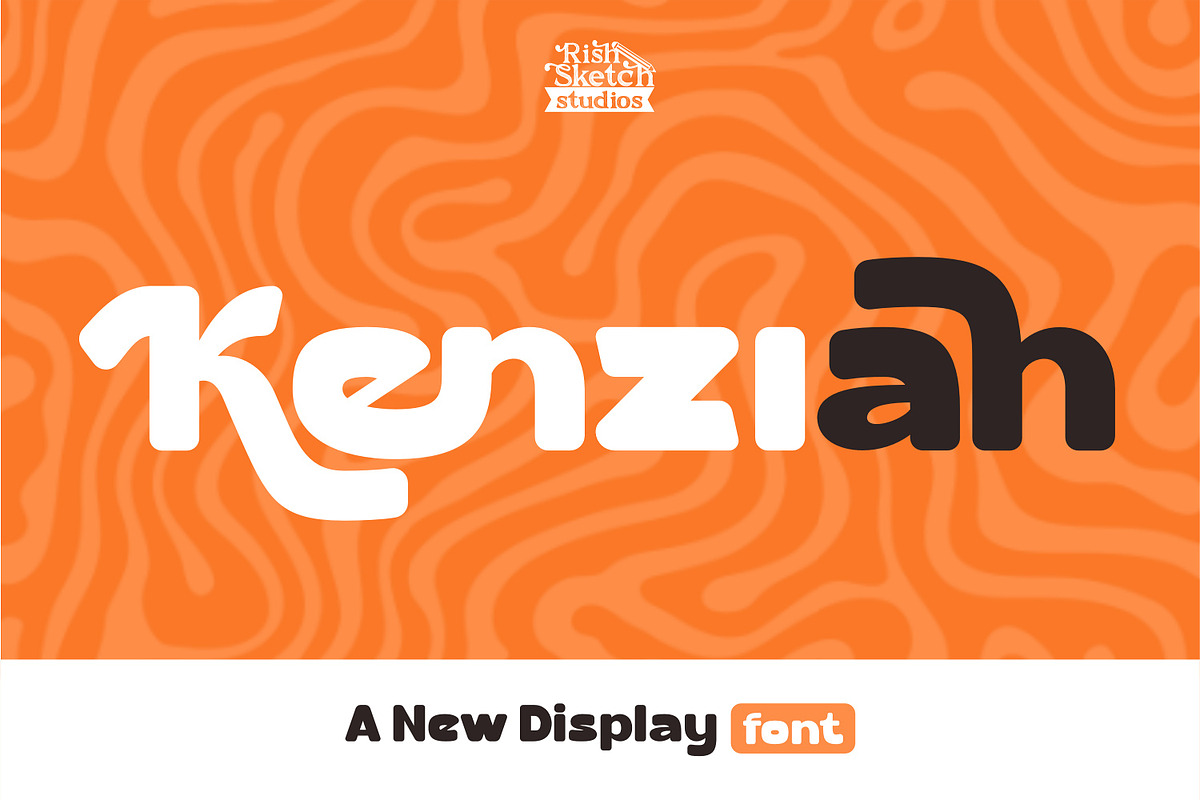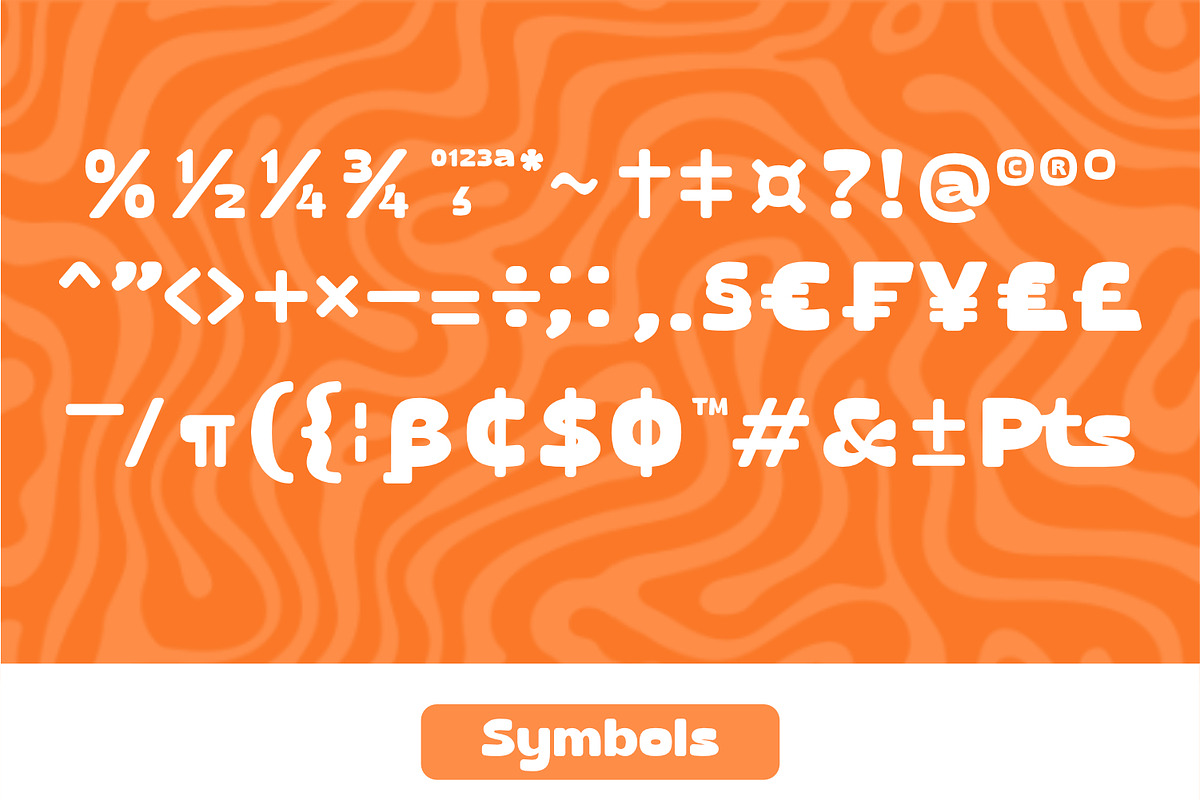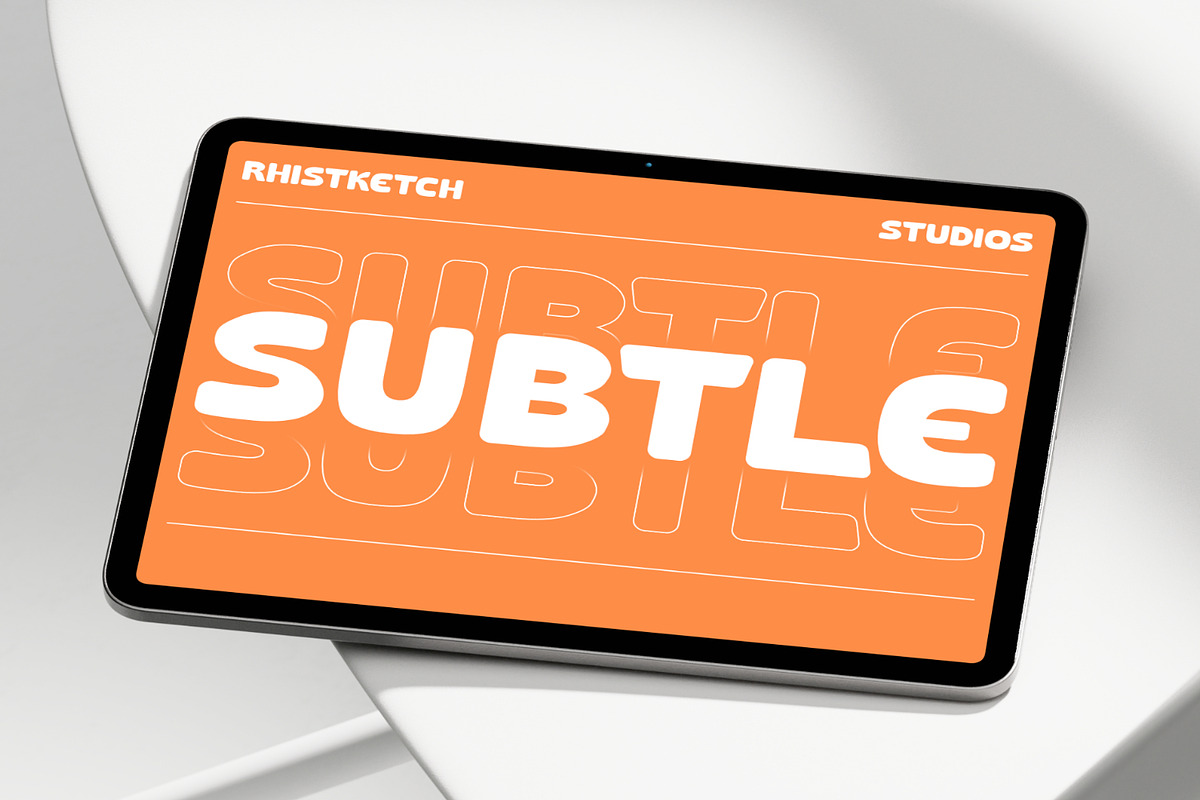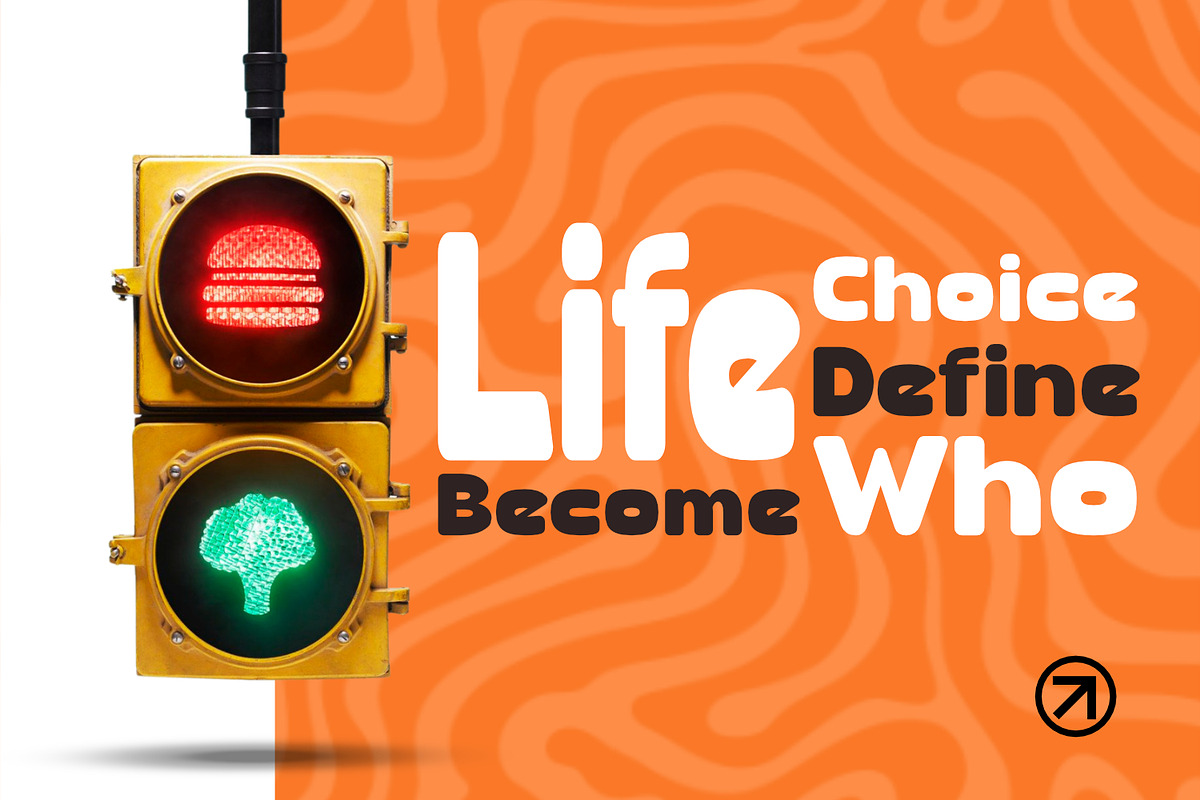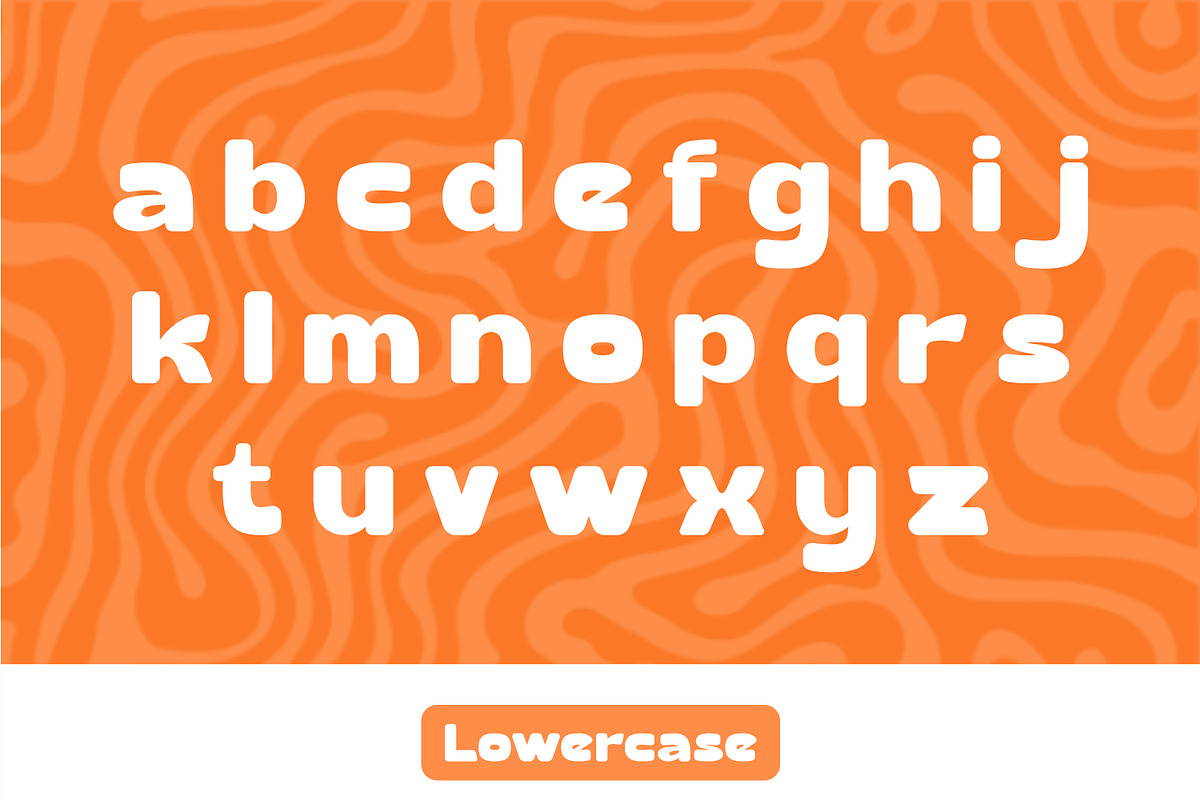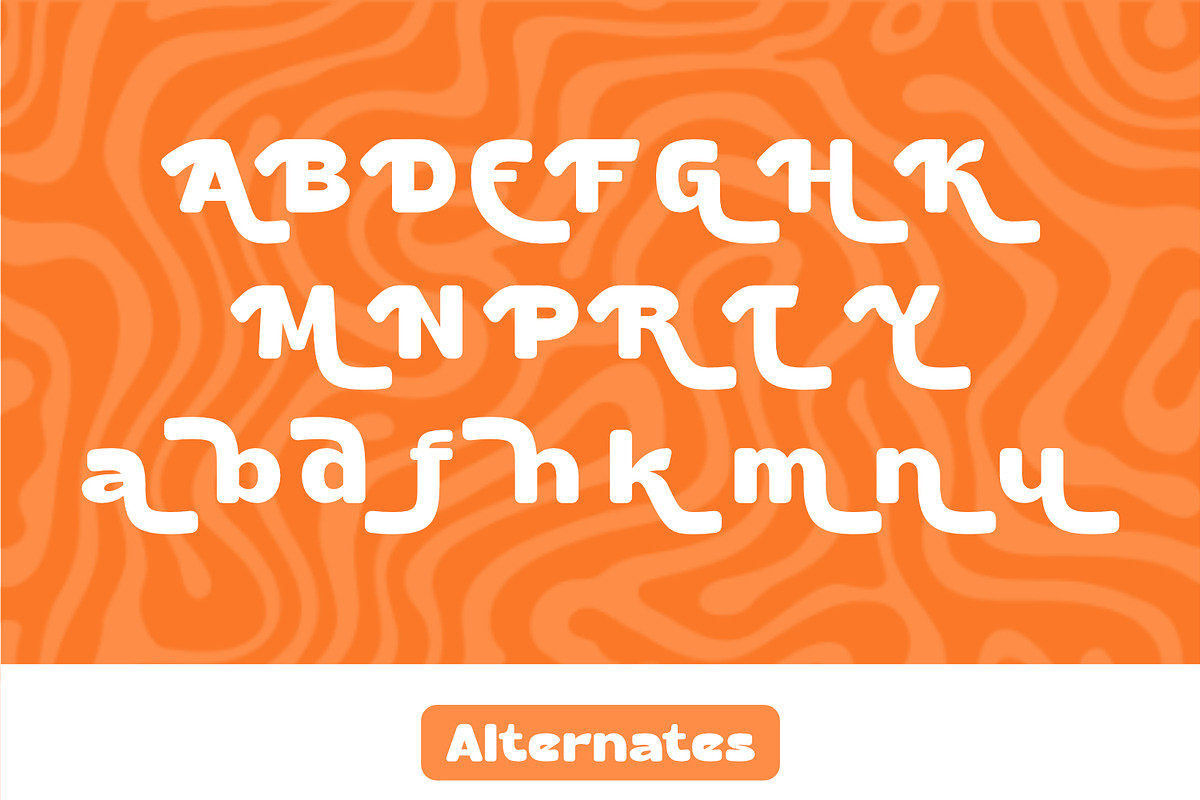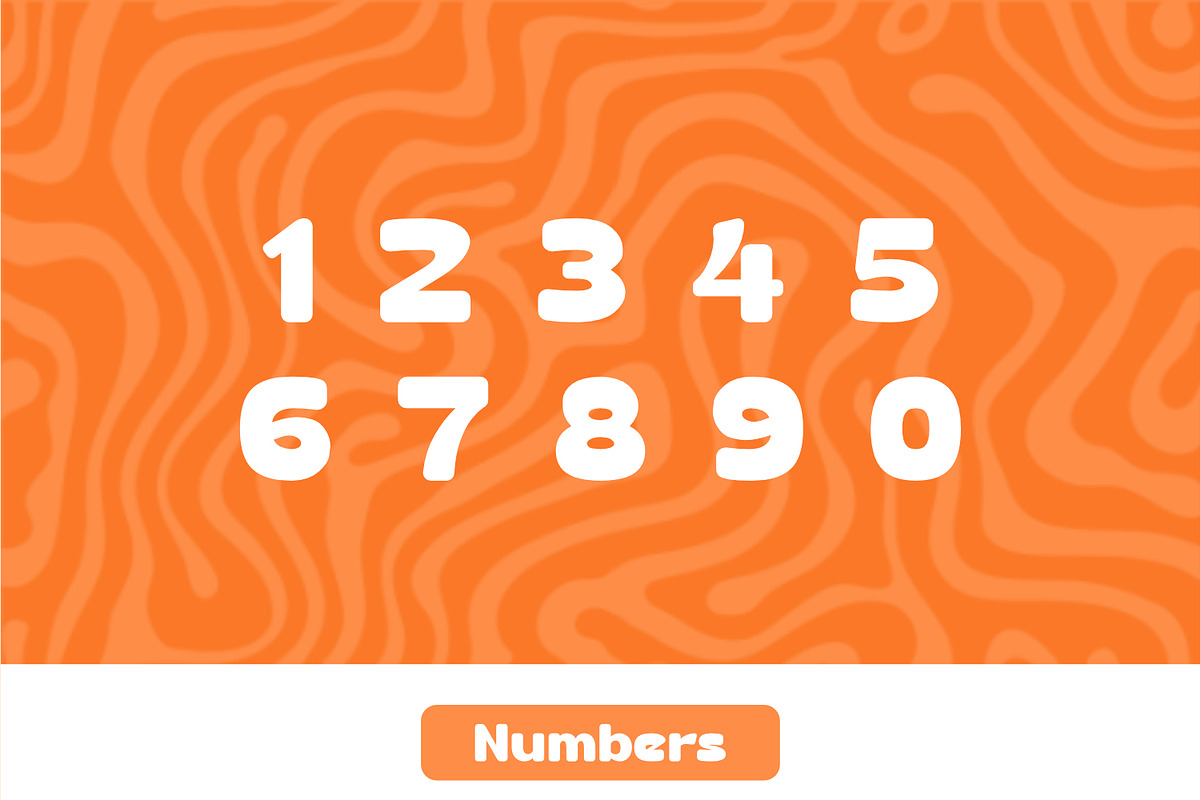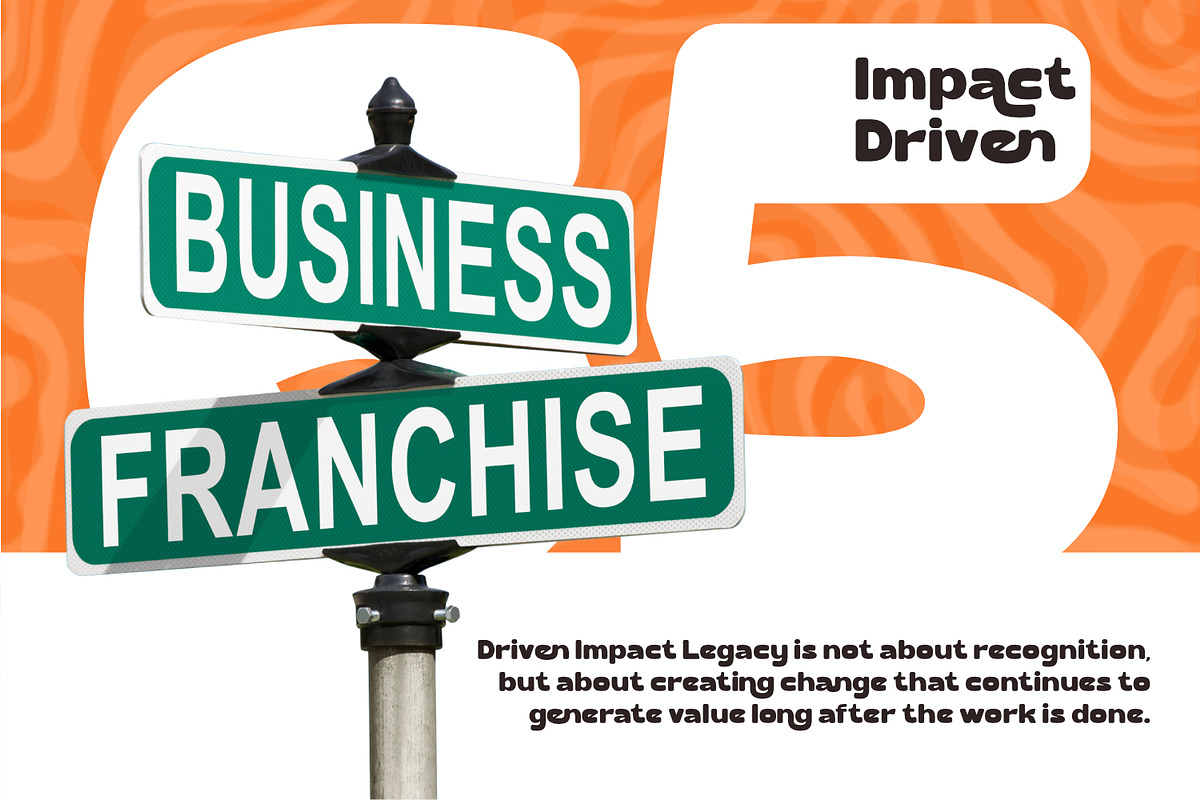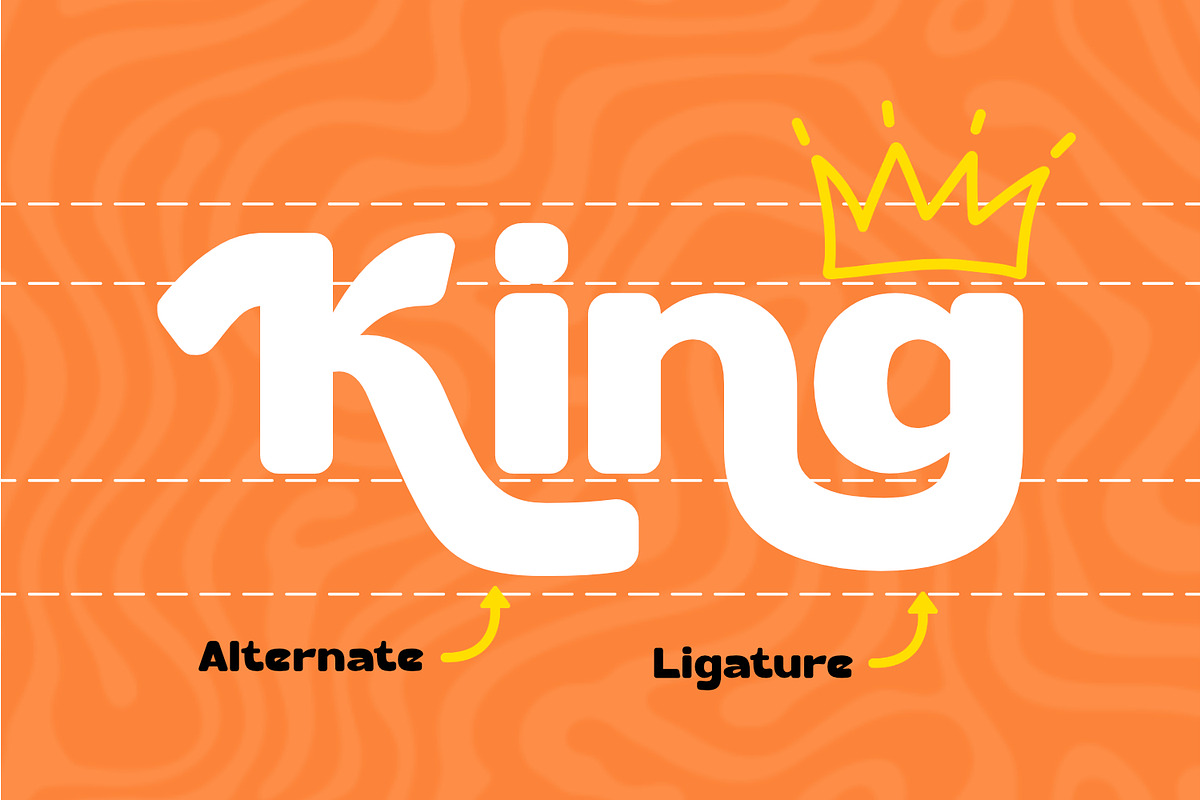
Kenziah - Retro Display Font
Kenziah - Retro Display Font, from Rishsketch Studios, is a premium Retro Display Font, perfect for any project that requires a distinctive, and premium feel.
Ligature, Alternate & Multilingual